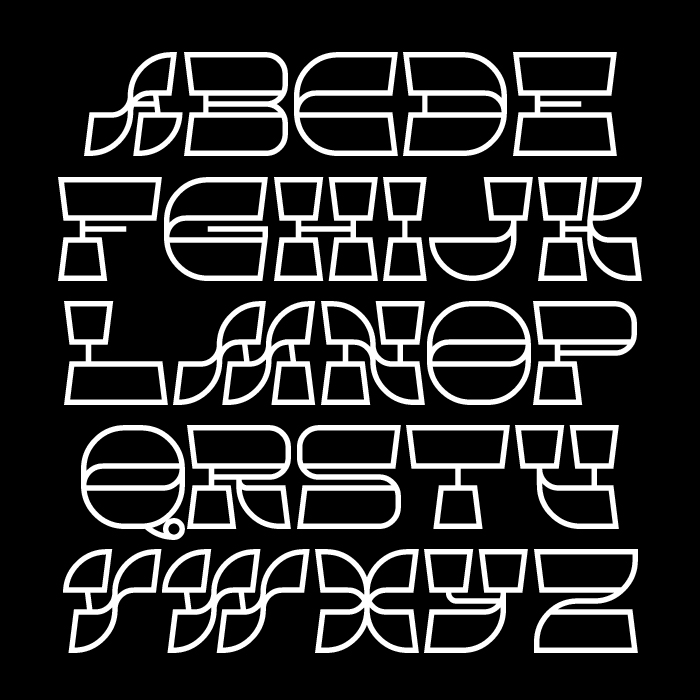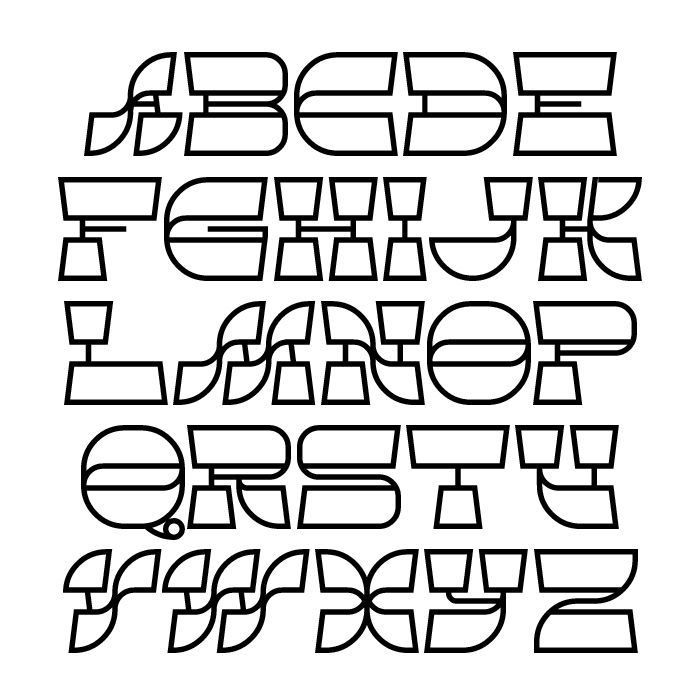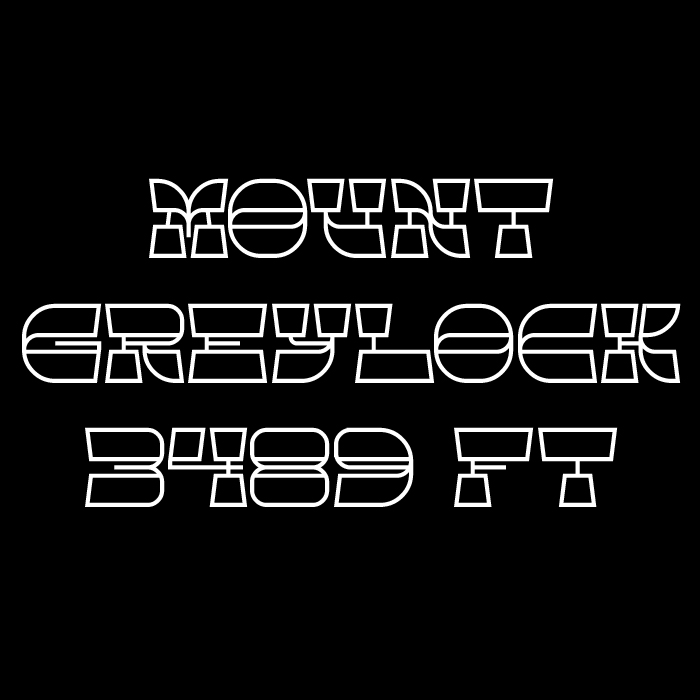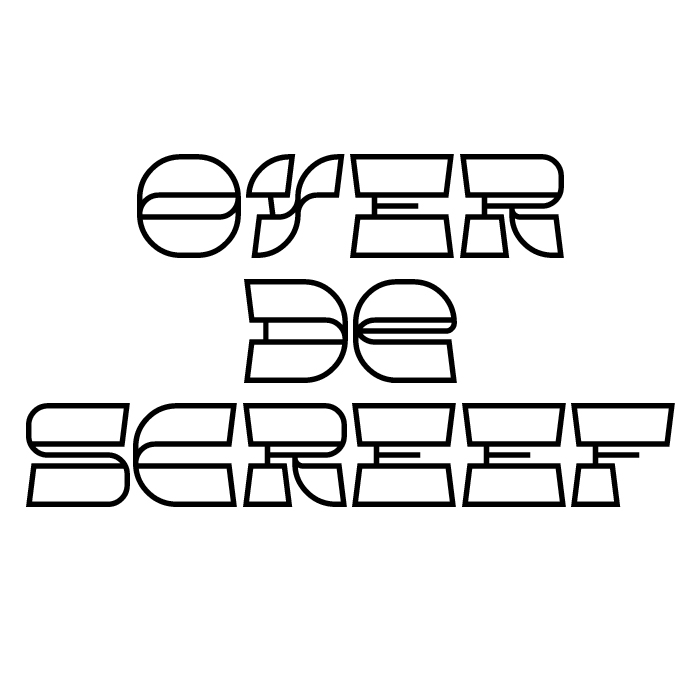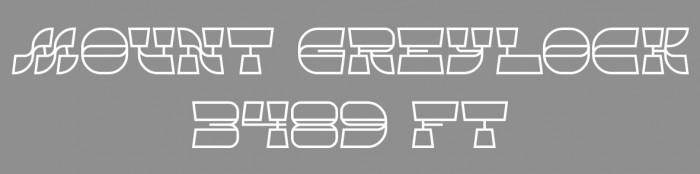
The last-last A is wonderful.
This looks pretty nice, especially the M on the -, the W on the /, and the A on the =…
Also, A filled-in version of this would be entirely possible (If that wasn't done already…
I also like the V on the >…
Thanks @elmoyenique and @BWM, those last letters were actually added after elmoyenique's comment about the last A. Looking through your fonts again now, I can see similarities with your font zychotropic.
Don't worry, isn't a problem. Is another reason why I like this font even more.
a very visually appealing design
Typo: Over de Schreef...